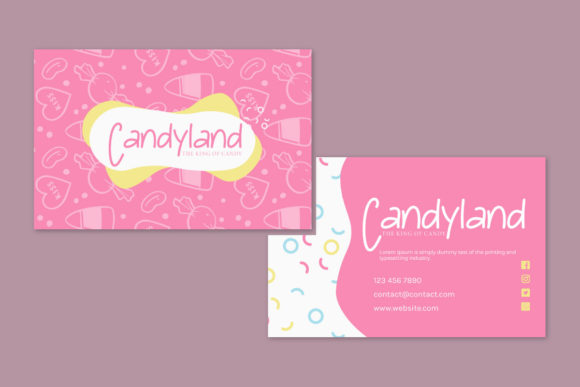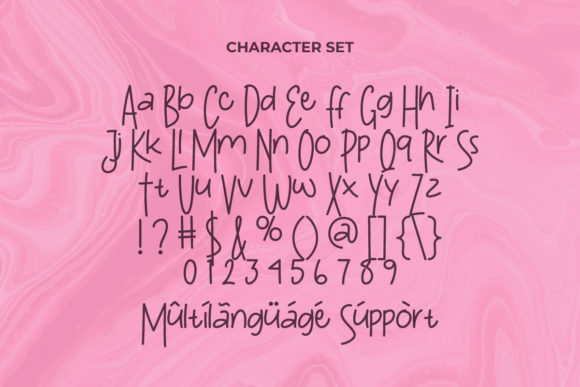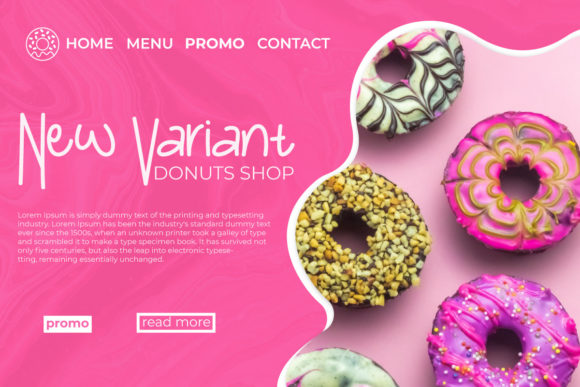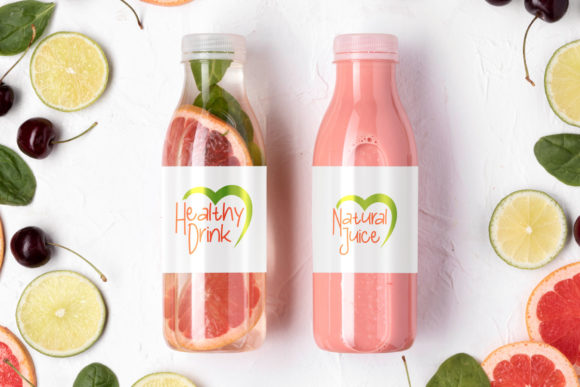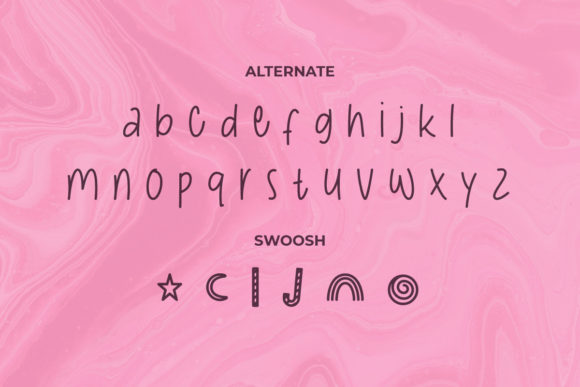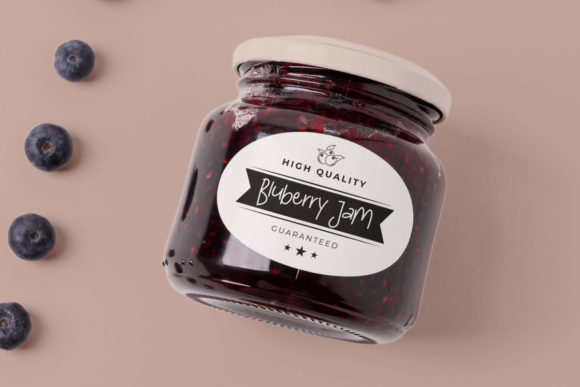
Introduction to Lollipop Jar Font
Do you remember the first time you unwrapped a colorful lollipop on a hot summer day? The excitement of the sugary rush and the joy of savoring the sweet treat is a memory many of us cherish. That’s exactly the feeling you want to evoke when using the Lollipop Jar Font in your creative projects.
As a designer, you’re always on the lookout for the perfect font to add that extra oomph to your work. And that’s exactly what the Lollipop Jar Font offers – a high-quality, PUA encoded font that’s perfect for adding a touch of whimsy to your designs. Whether you’re creating a birthday invitation, a product packaging design, or a website, this font is sure to be a valuable addition to your design resource library.
Key Features of Lollipop Jar Font
- Unique, playful design perfect for creative projects and kids’ themes.
- Comes with a transparent background, making it easy to customize and layer with other design elements.
- Includes a range of sizes and resolutions, from 72 dpi to 300 dpi, for use in various design applications.
- Designed to be a fun and whimsical design resource, ideal for use in digital and print projects.
Honest Review: Lollipop Jar Font
I recently stumbled upon the Lollipop Jar Font, a delightful free download that’s perfect for adding a whimsical touch to your creative project. The font’s unique, hand-drawn design is instantly recognizable and sure to capture attention.
- High-quality design: The font is well-crafted and feels premium, making it suitable for a wide range of creative projects.
- Transparent background: This allows for seamless integration with various backgrounds and designs.
- Limited character set: The font only includes uppercase and lowercase letters, with limited punctuation and symbol support.
- No bold or italic variants: This can make it tricky to create emphasis or variety in your design.
Overall, I’m impressed with the Lollipop Jar Font’s potential, but I do wish it had a more comprehensive character set. Still, it’s a great addition to any designer’s toolkit, and I’m excited to see how others use it in their creative projects.
Tips for Getting the Most Out of Lollipop Jar Font
Use the Lollipop Jar Font in conjunction with a transparent background to create visually appealing designs. Experiment with different font sizes, colors, and styles to find the perfect combination for your creative project.
The Lollipop Jar Font is commonly used in creative projects such as blog posts, social media graphics, and print materials. Its unique design and high-quality nature make it an ideal choice for designers and non-designers alike.
Is the Lollipop Jar Font suitable for large-scale printing?
Yes, the Lollipop Jar Font is designed to be high-quality and suitable for large-scale printing. The font has been optimized for use in a variety of print contexts, including business cards, brochures, and posters. Just be sure to use a high-resolution version of the font and follow best practices for printing to ensure the best possible results.